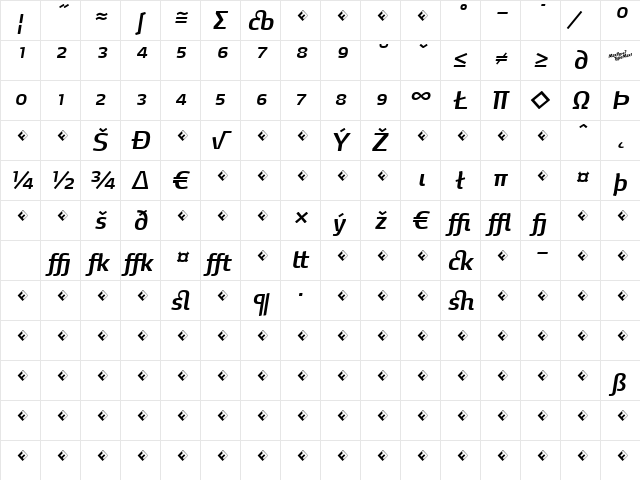
MaxDemiSerif-SemiBoldItaExp Regular
| Foundry | FontShop International |
| Designer | Morten Rostgaard Olsen |
Design Context for MaxDemiSerif-SemiBoldItaExp Typeface
MaxDemiSerif-SemiBoldItaExp brings classic typographic sensibility to the table — its serifs and measured letterforms reflect centuries of print heritage. The heavy weight commands attention and anchors typographic hierarchies.